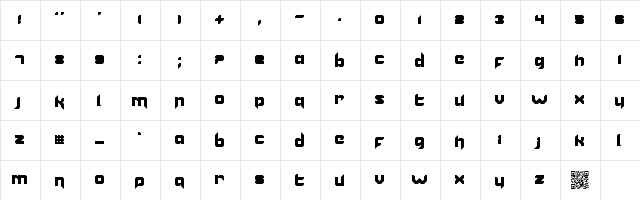
Vannoidyk Regular
Design Context for Vannoidyk Typeface
Vannoidyk is a composed and adaptable typeface that performs quietly and consistently across a wide range of design contexts.